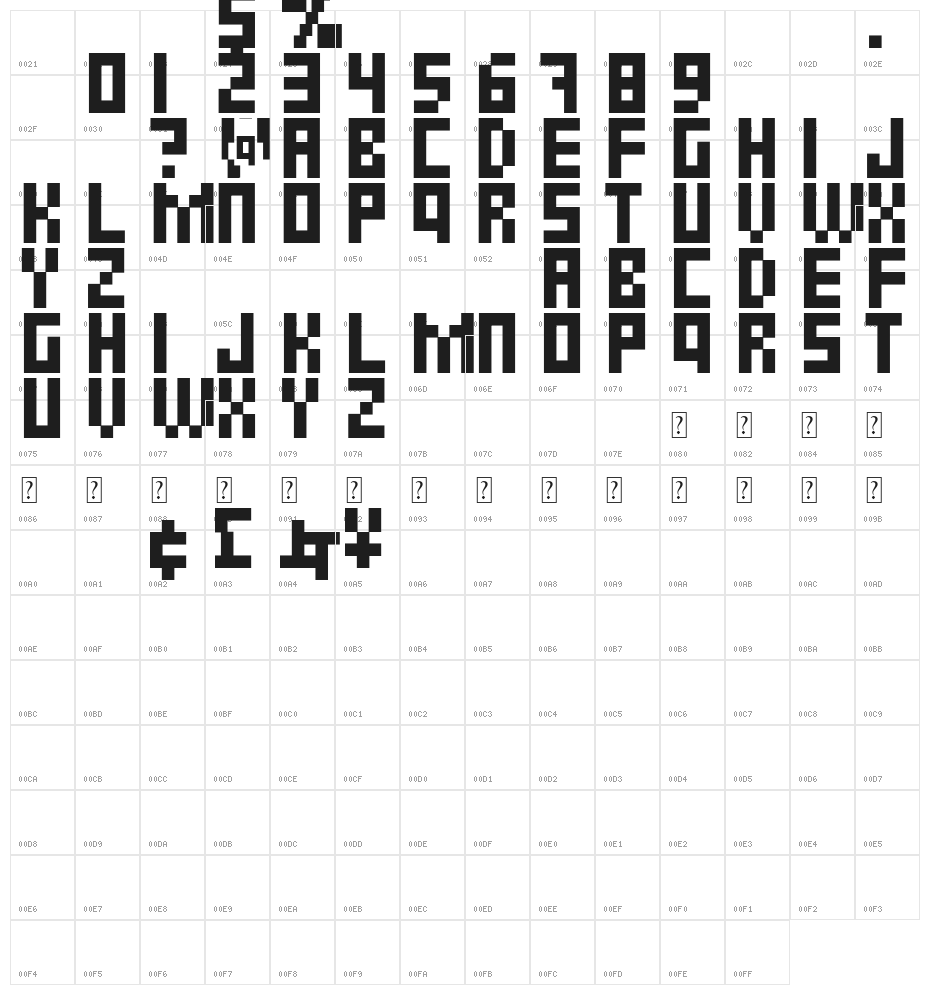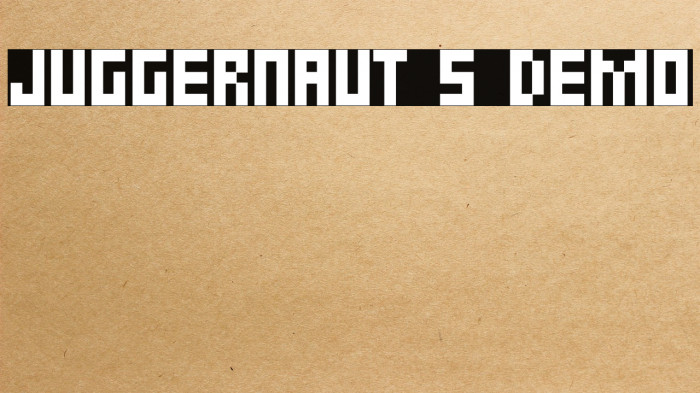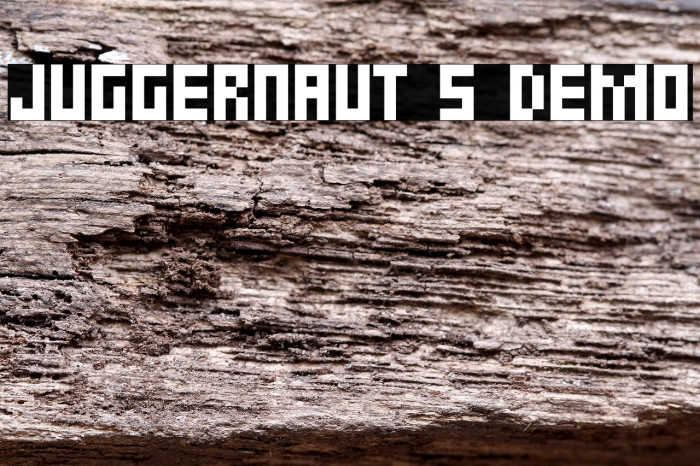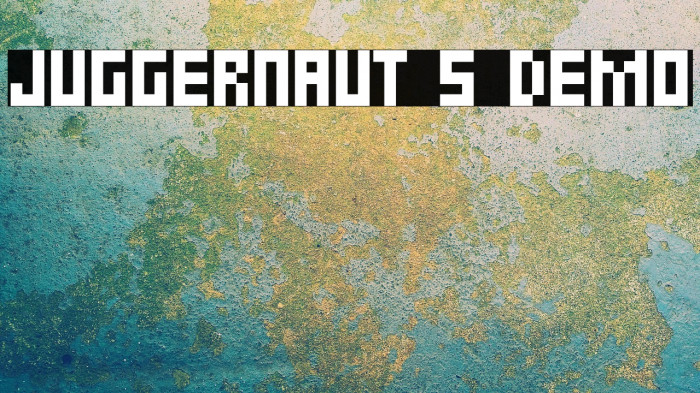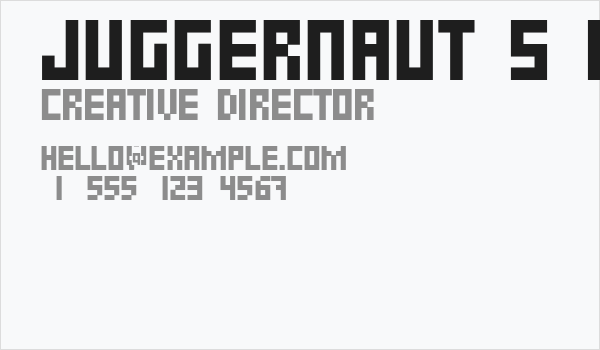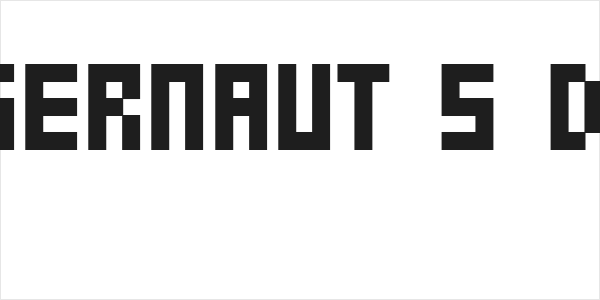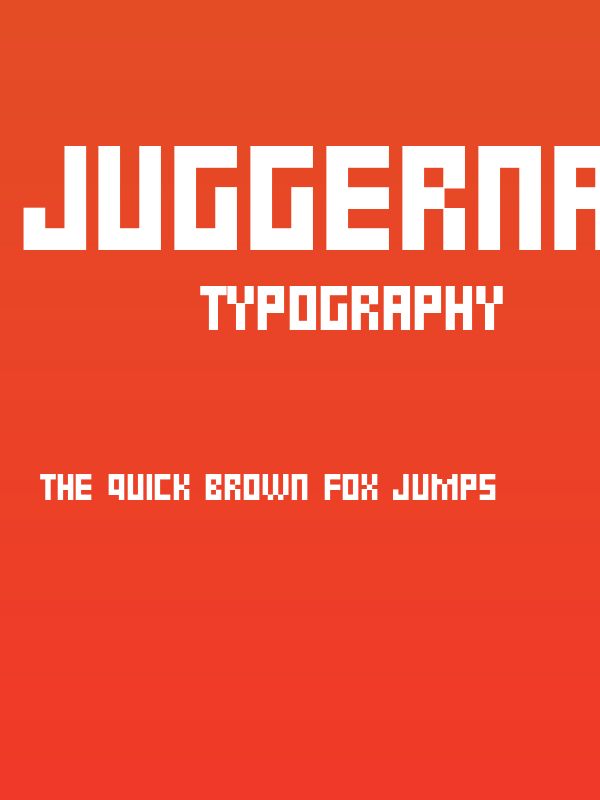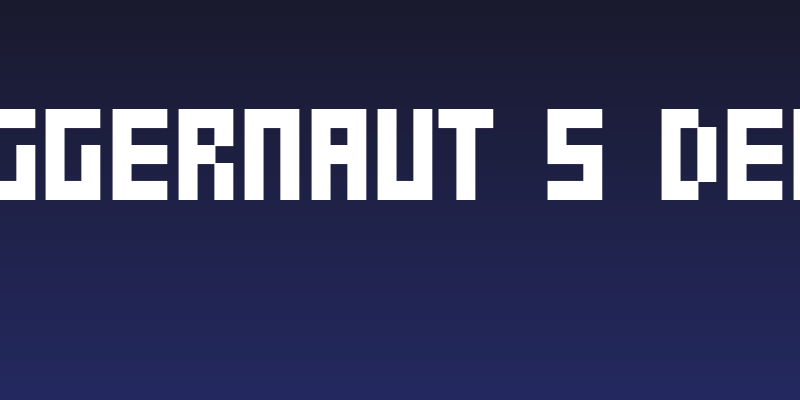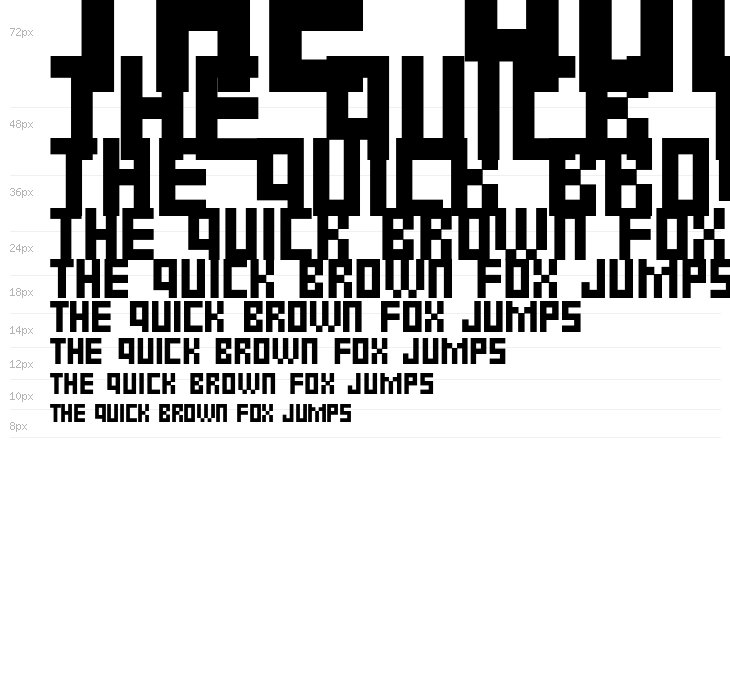
JUGGERNAUT s demo Font
JUGGERNAUT s demo Description
This font features a bold, blocky design with a distinctly pixelated appearance, reminiscent of retro video game graphics. The characters are uniformly wide, with sharp, angular edges that give it a strong, impactful presence. The uppercase and lowercase letters are identical, maintaining a consistent height and width throughout. Numbers and special characters follow the same geometric style, ensuring a cohesive look across all elements. The font's simplicity and clarity make it highly legible, even at smaller sizes, while its unique style adds a touch of nostalgia and playfulness.
| Overall Style | Retro, Playful |
| Proposed Projects | Ideal for video game graphics, retro-themed posters, digital art, and any project seeking a nostalgic or playful vibe. |